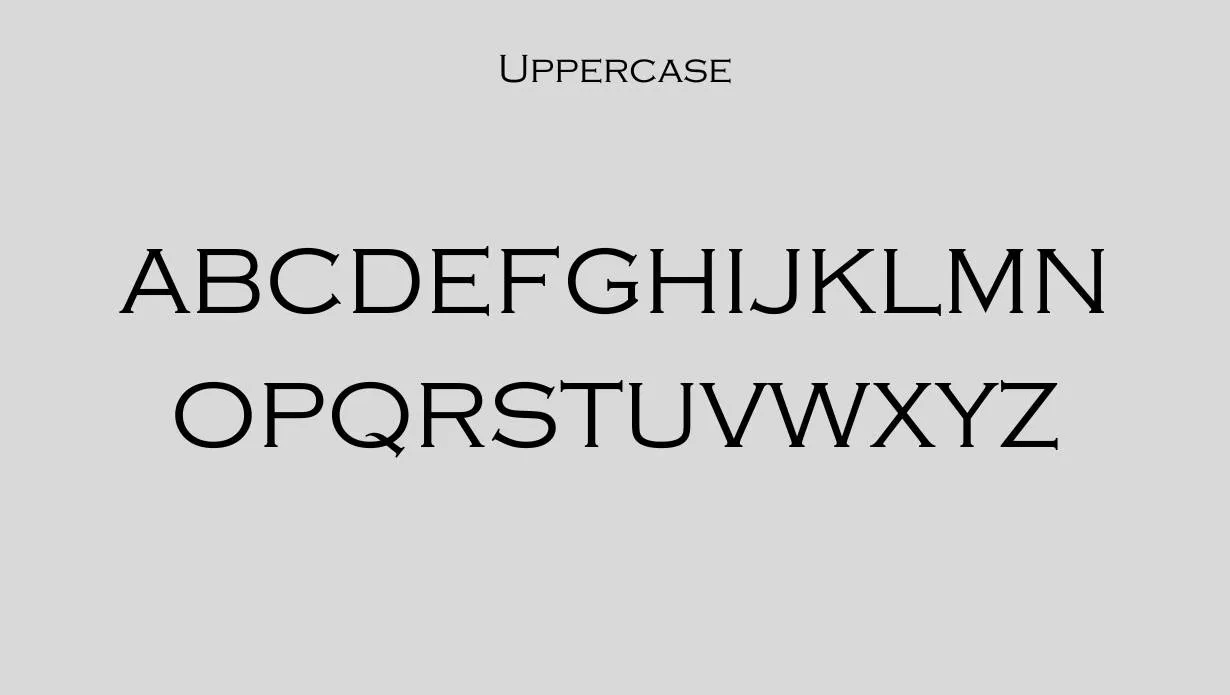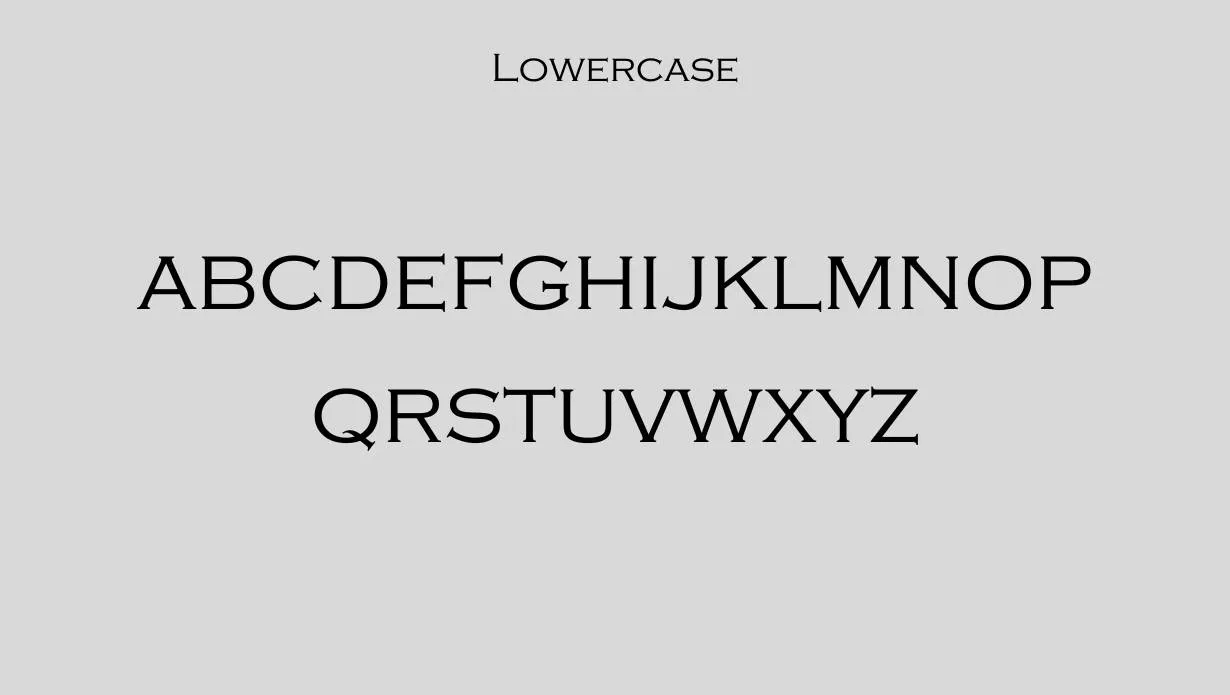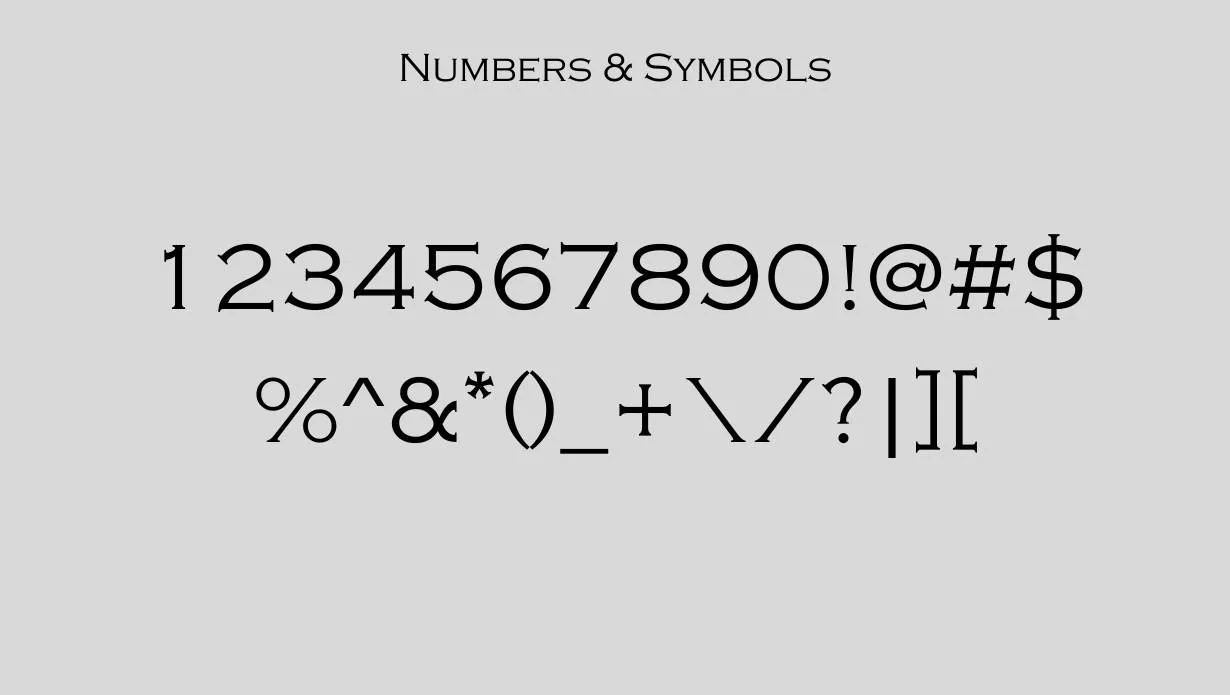
Copperplate Gothic Font was designed by Frederic W. Goudy and manufactured by URW Type Foundry. This font is available in 9 different styles which makes it perfect for use for different projects.
The look of this typeface is very neat and clean so it has high readability. You can use it for making even small-size projects.
Copperplate Gothic Font Family
It can be used for pairing with other fonts like gravity point font to give a more attractive look to your projects. It contains all capital letters which makes it look stronger for logos, headings, and titles.